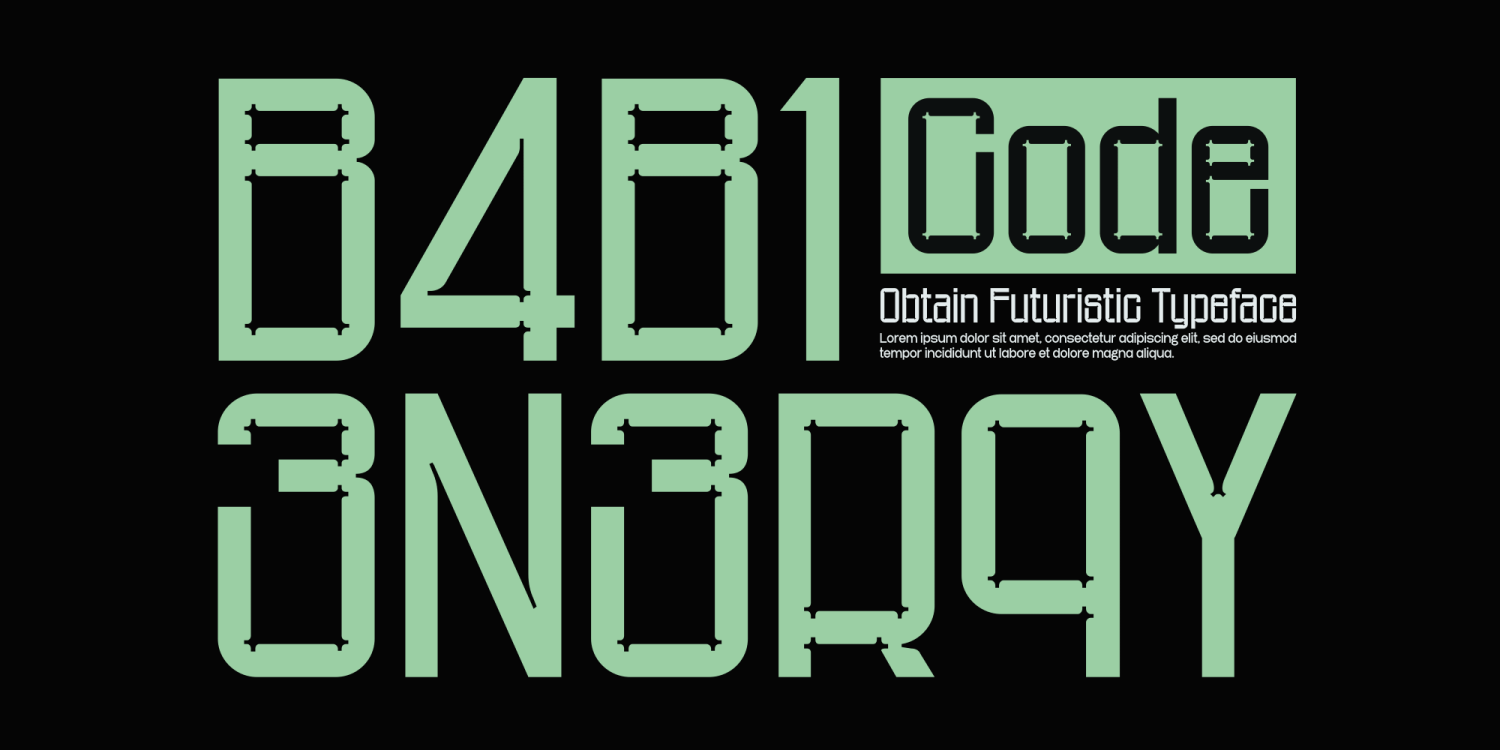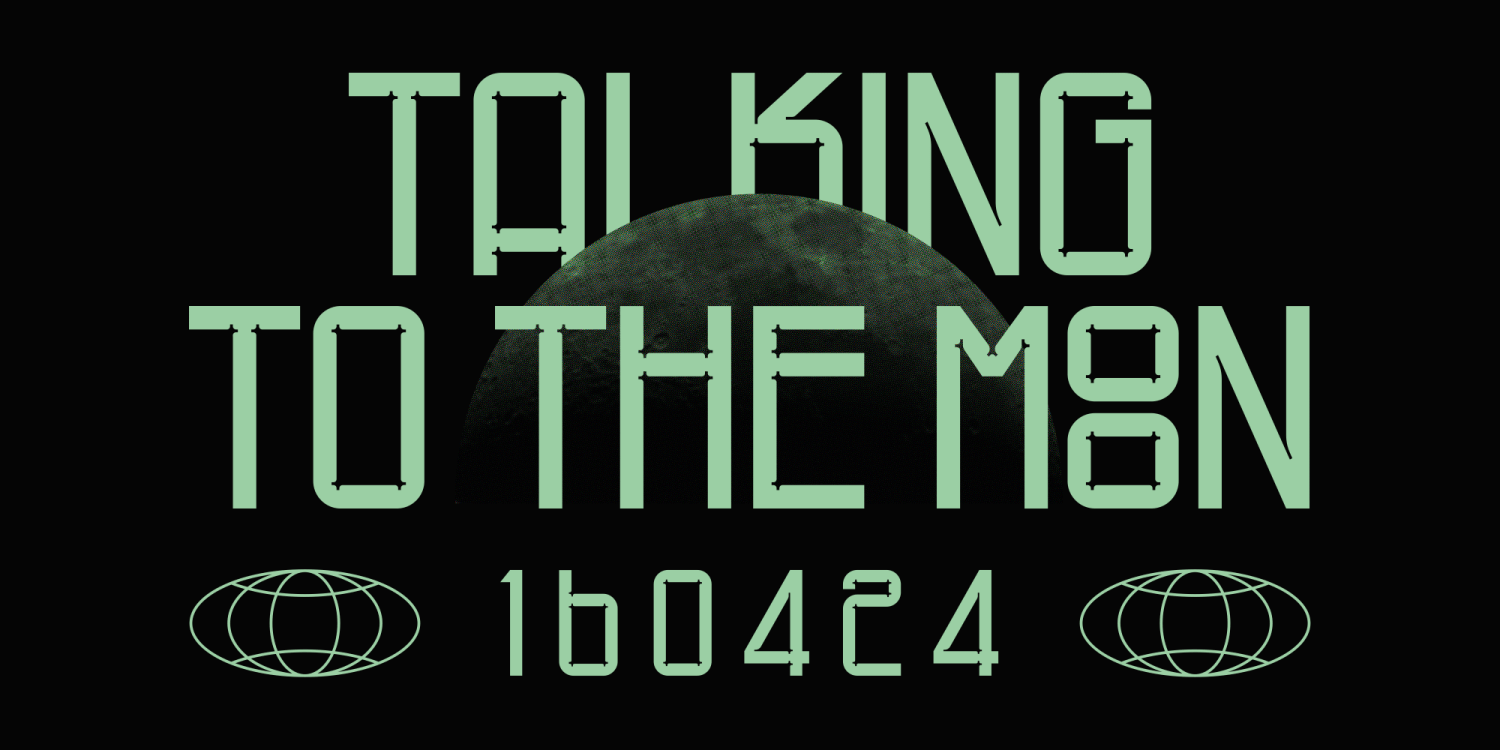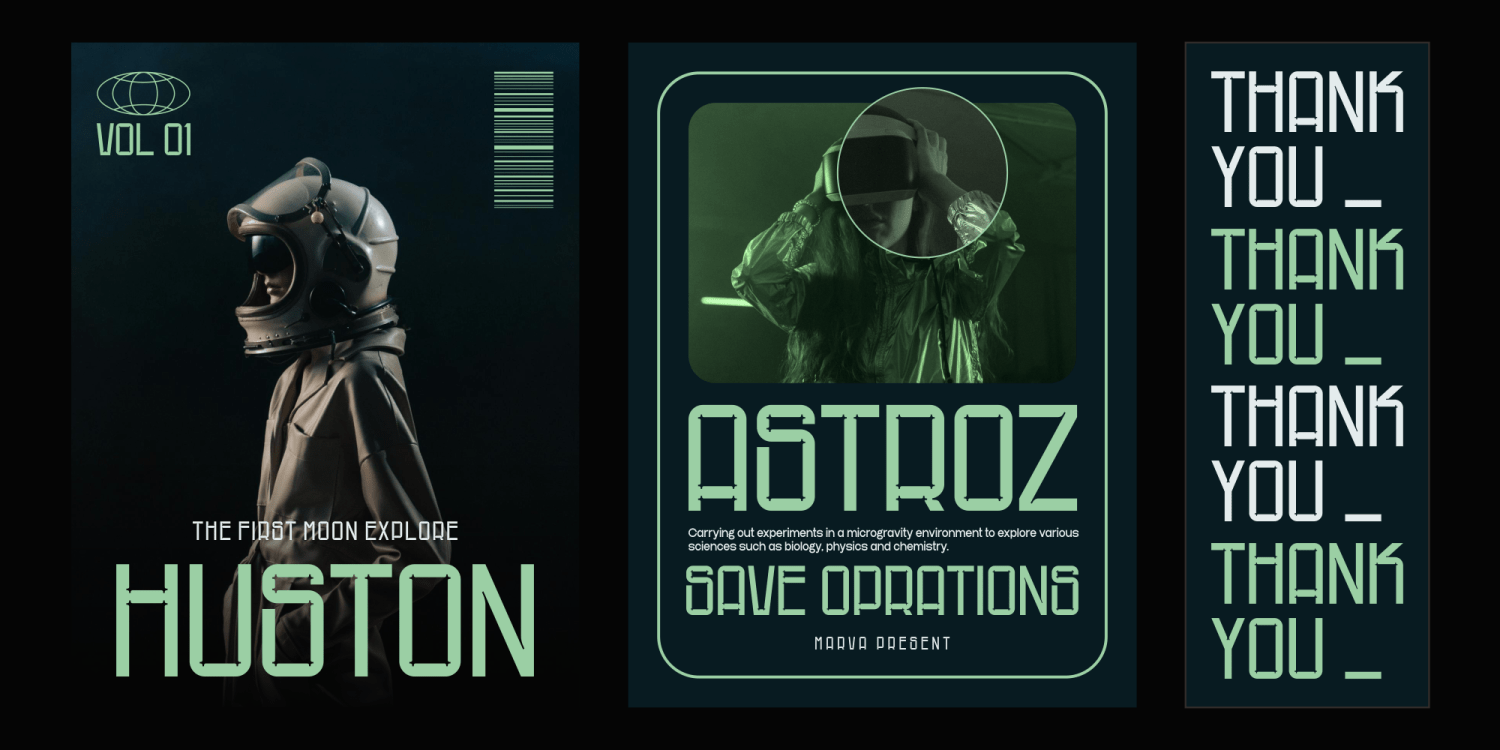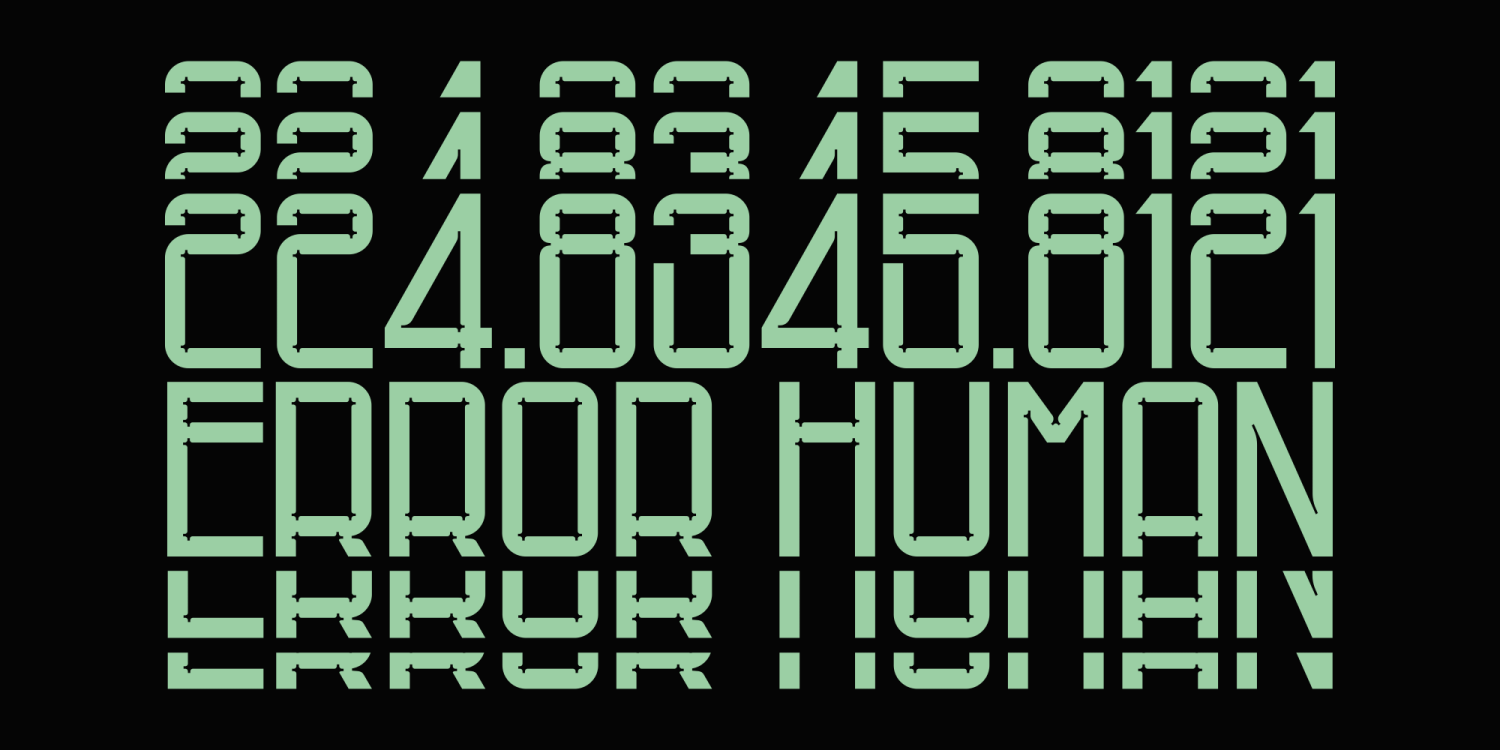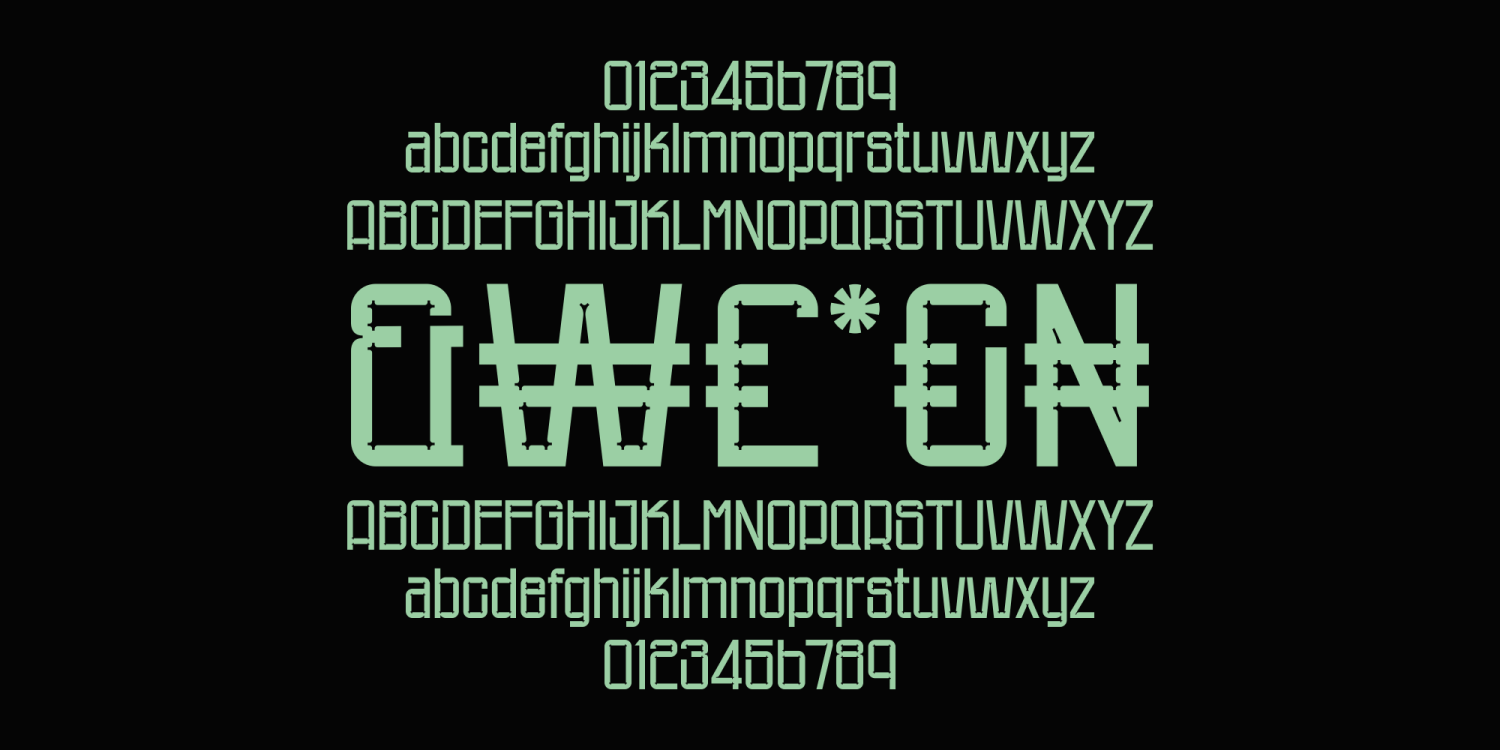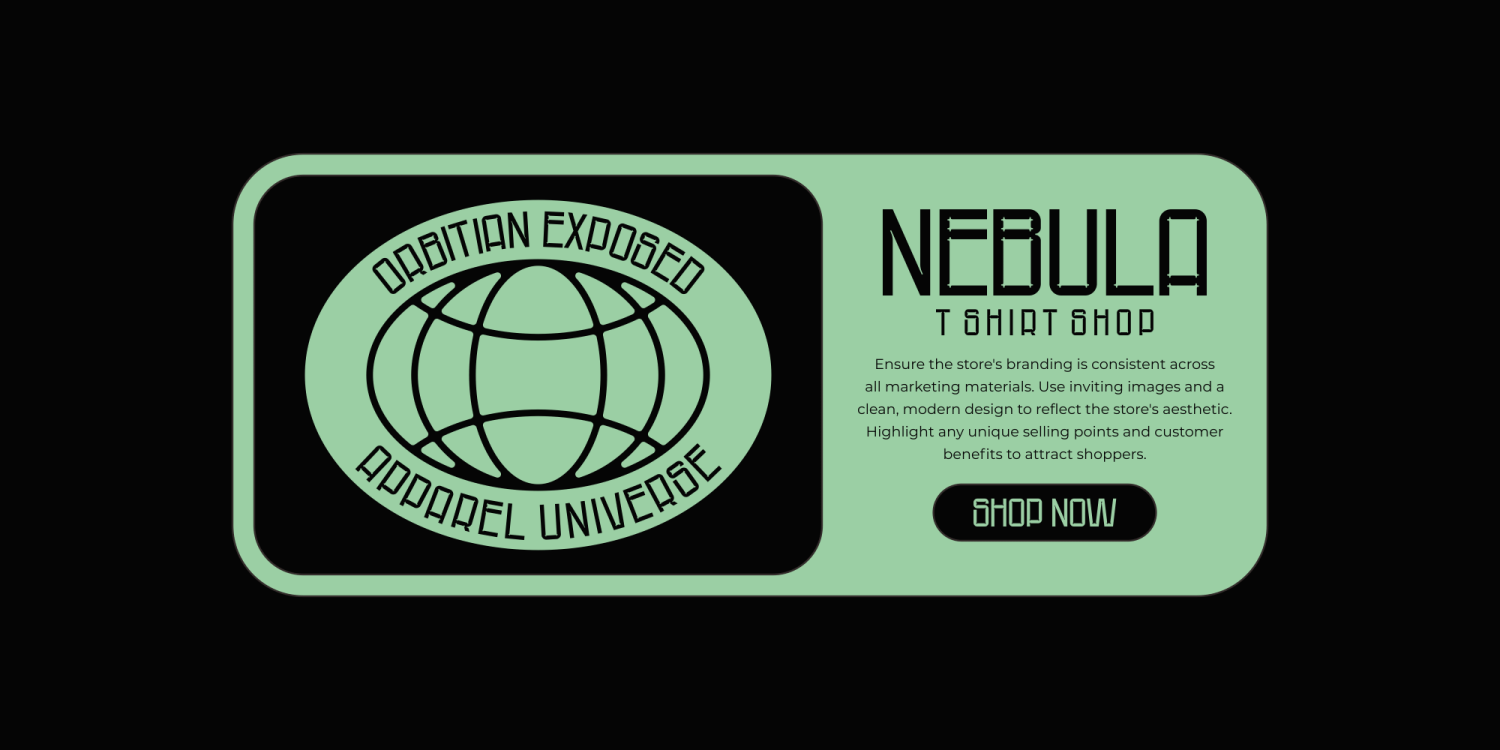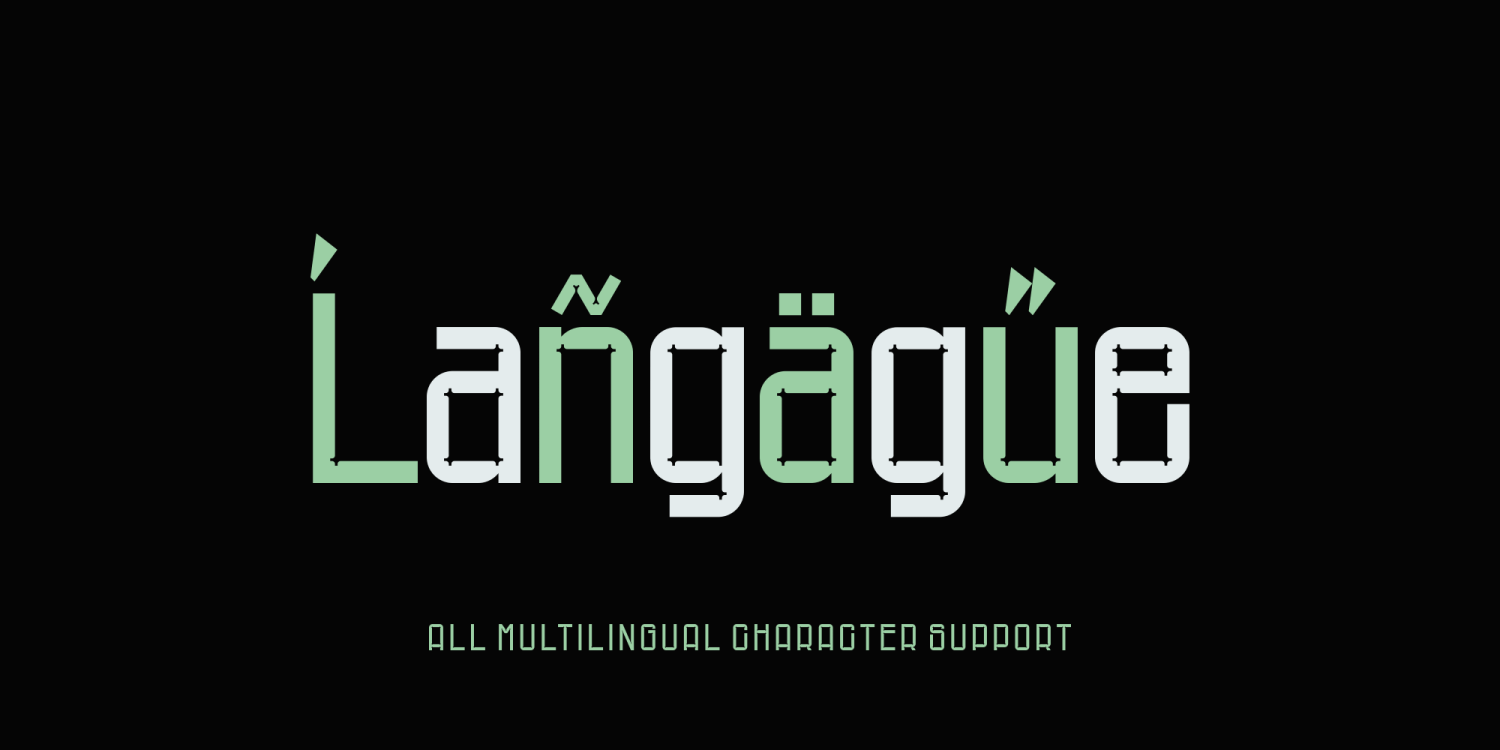
Obtain
Font Family by Marvadesign
inroducing Obtain is a sleek and modern sans serif font that embodies minimalism with a touch of futuristic elegance. This font is designed to provide a clean, sharp appearance while maintaining readability and style. The condensed letterforms allow for more text to fit in limited spaces, making it ideal for headlines, posters, and tight layouts. With its contemporary lines and geometric shapes, this font is perfect for tech-related content, branding, and innovative design projects. The minimalist approach ensures that each letter is streamlined and uncluttered, contributing to a sophisticated and professional look. Each corner of the letterforms in Obtain features unique, subtle symbols that add an extra layer of detail and distinction. These symbols are carefully integrated into the design, ensuring they complement rather than distract from the overall aesthetic. They provide a sense of uniqueness and creativity, making the font stand out in various design contexts.